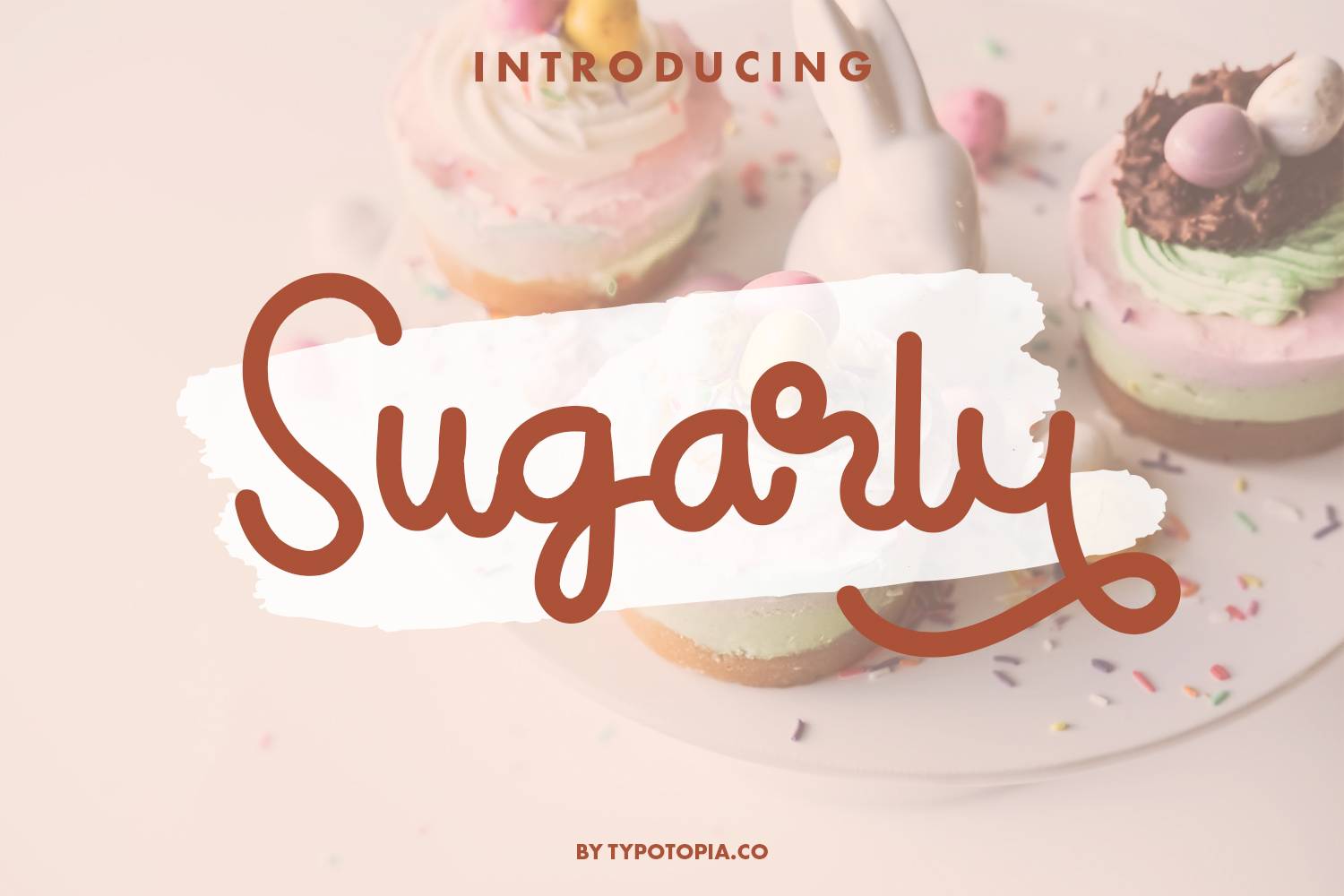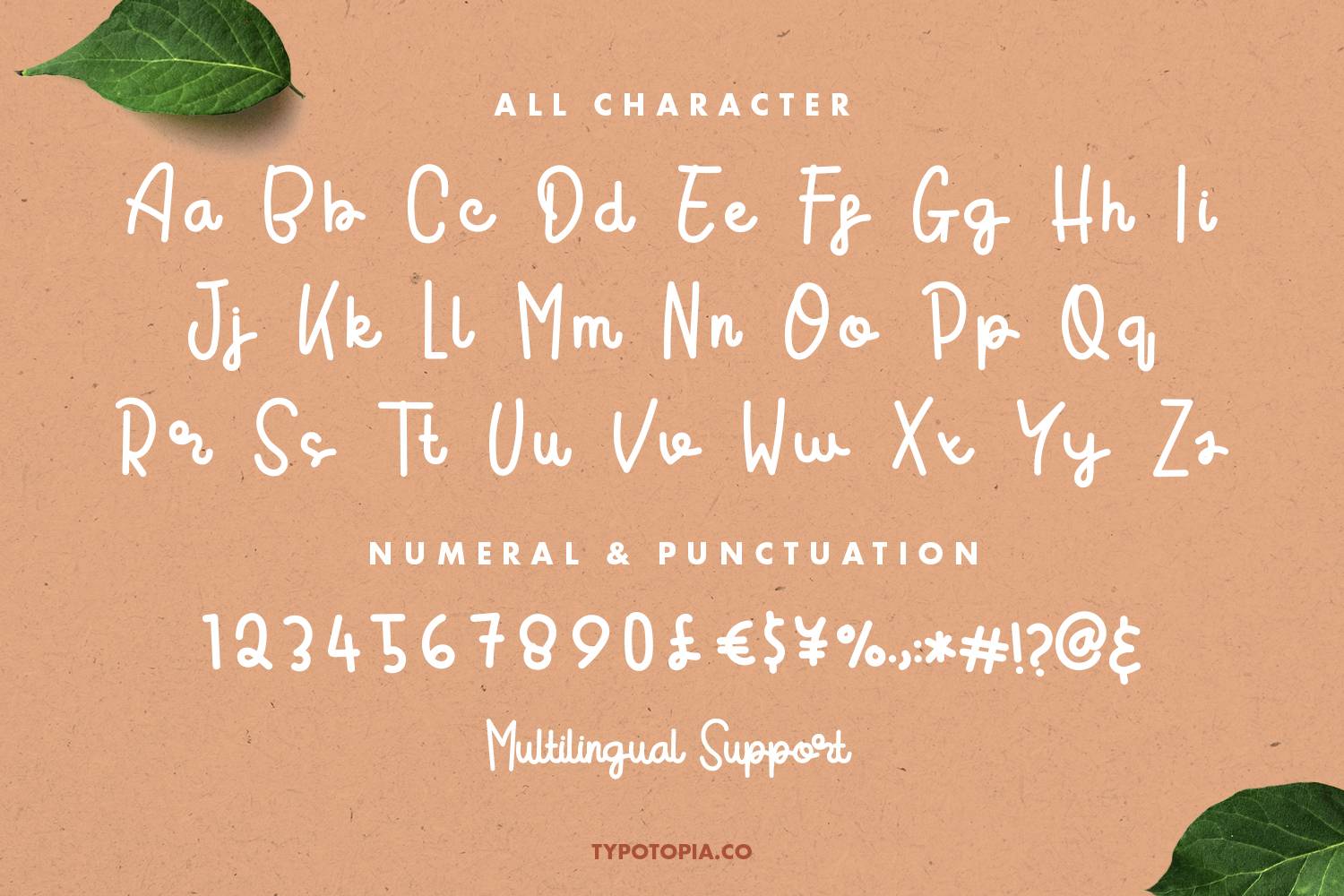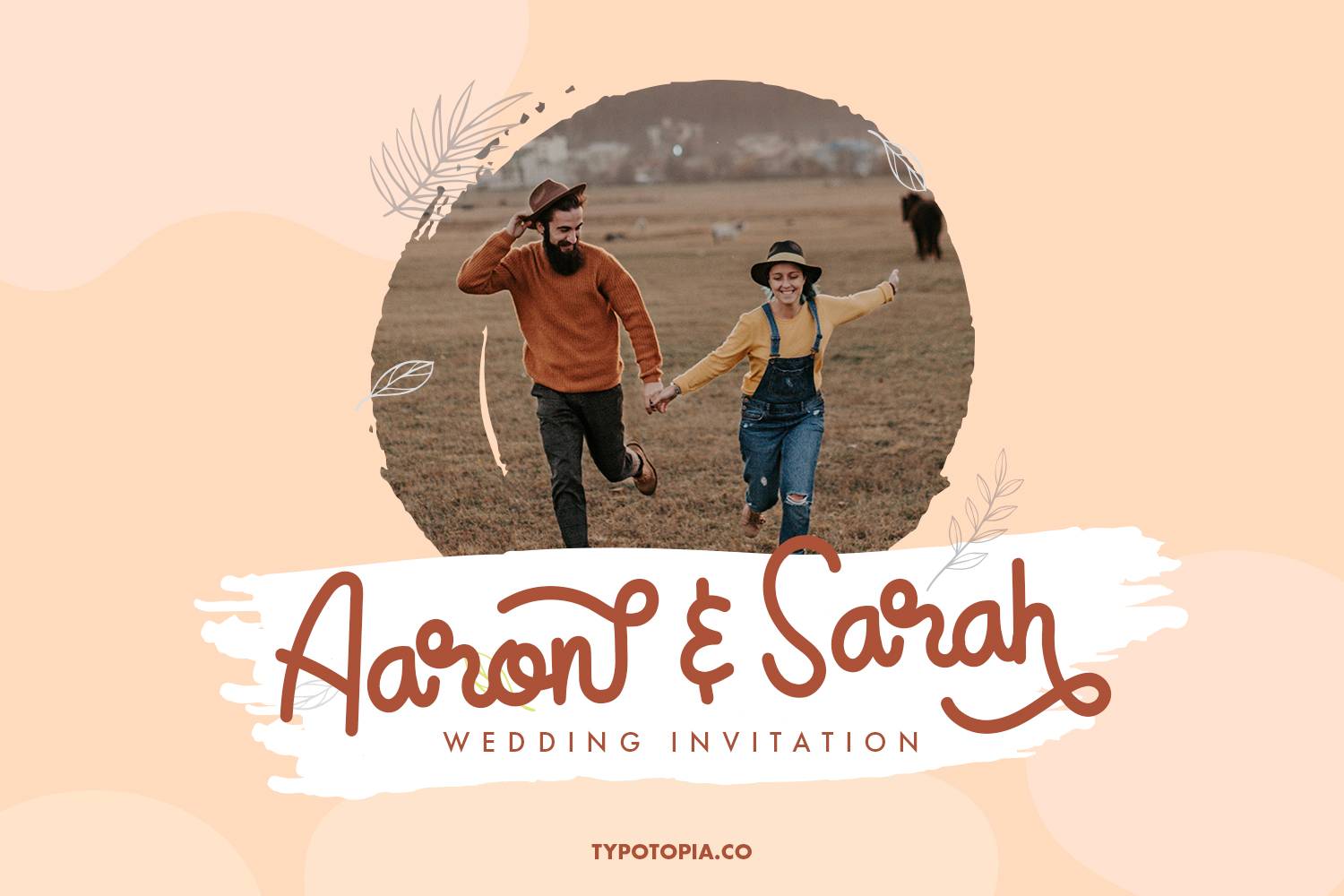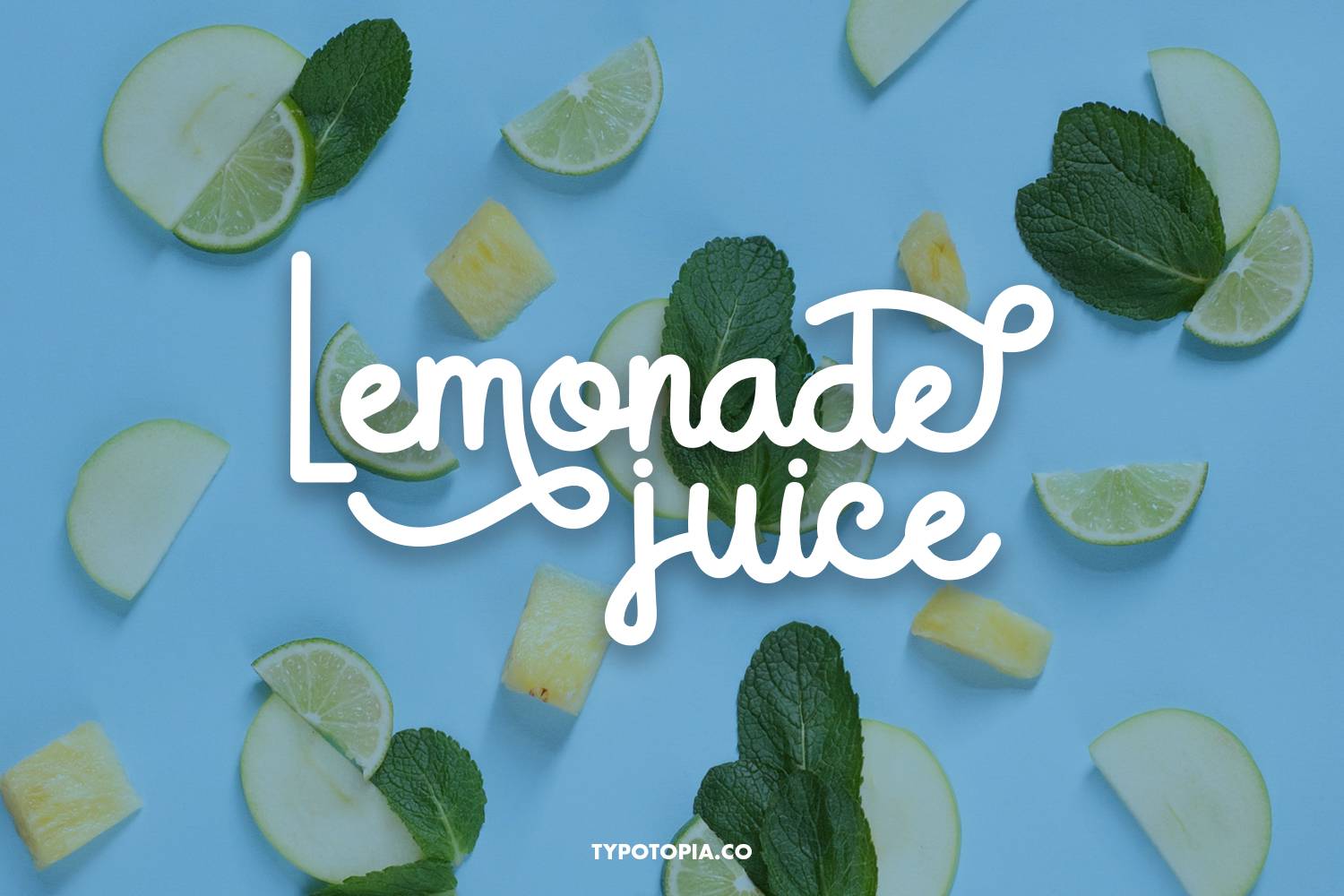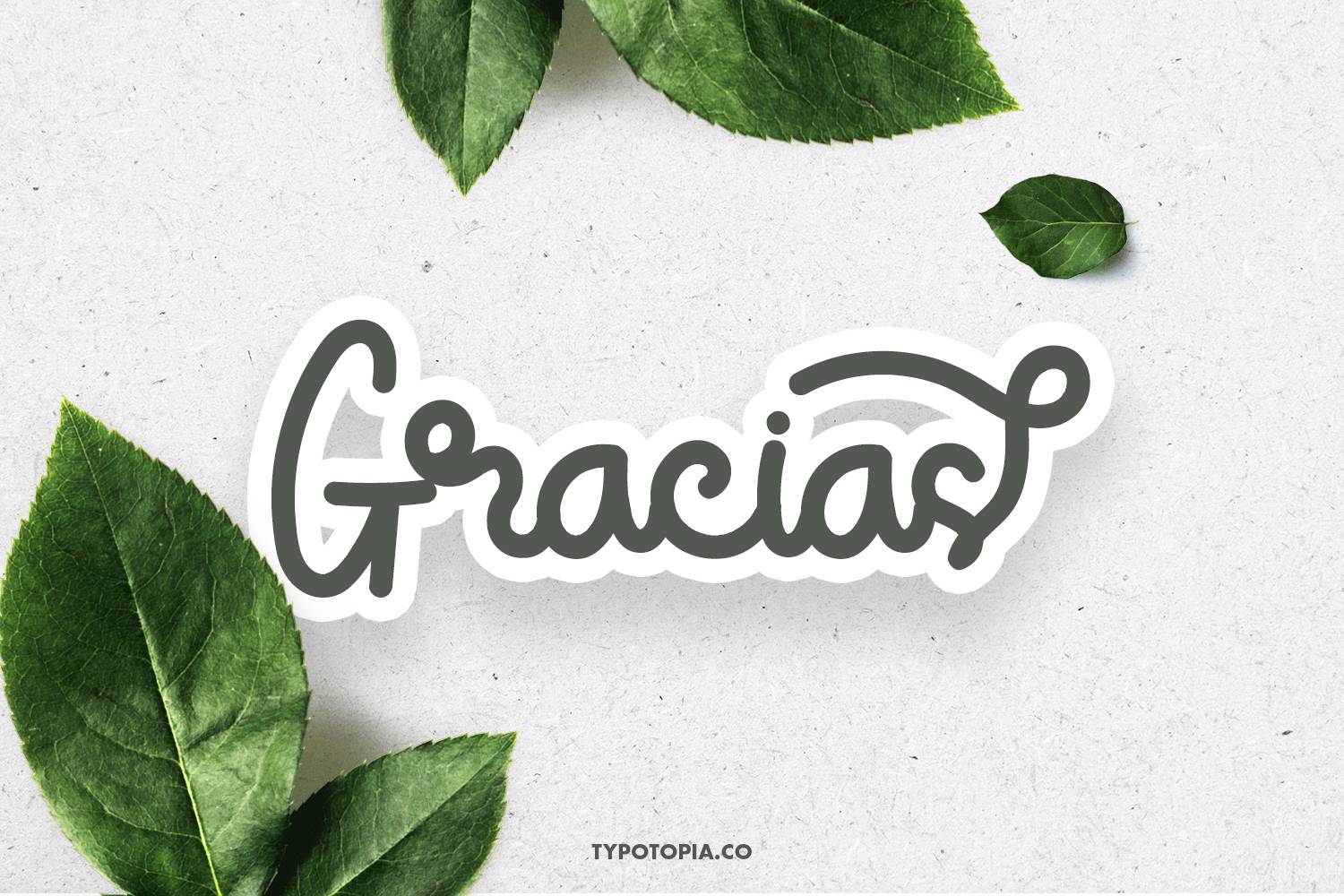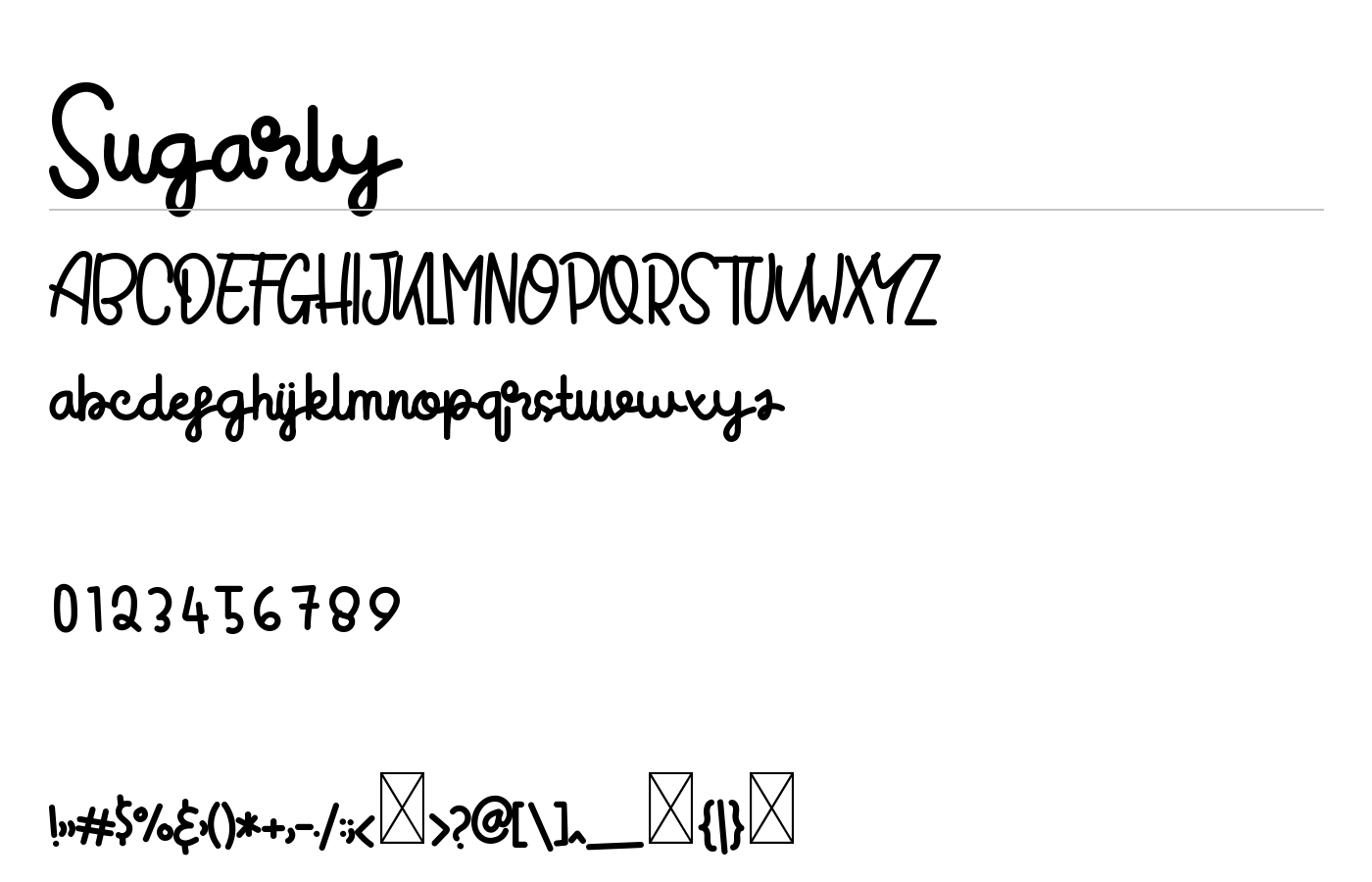
Sugarly is a playful and casual handwritten font with a light weight and slightly condensed structure, featuring smooth, rounded strokes and informal letterforms. Its lively and friendly style makes it ideal for branding, invitations, and creative projects that seek a personal, approachable touch. With its unique character shapes and consistent flow, Sugarly adds charm and warmth to headlines, logos, and packaging designs.
Sugarly Font
About Sugarly Font
| Font family | Sugarly Font |
| Designer | Khusnun Irawan |